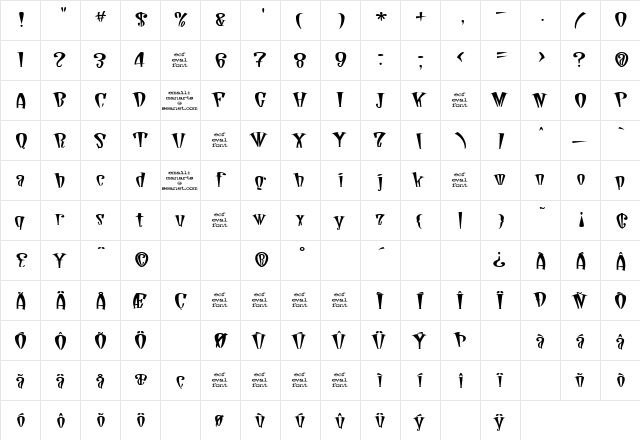
daddio (eval) Regular
Design Context for daddio (eval) Typeface
daddio (eval) is a composed and adaptable typeface that performs quietly and consistently across a wide range of design contexts.